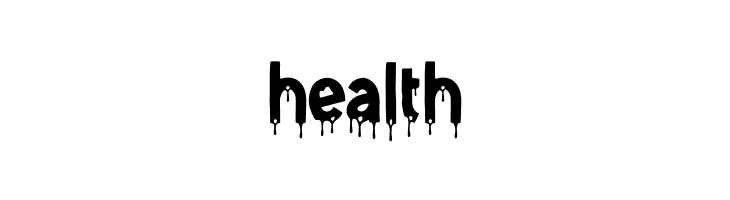
A dripping, horror-themed font with a bold, eerie style.
A bold, dripping font perfect for horror-themed designs.
A bold, dripping font perfect for spooky and dramatic designs.